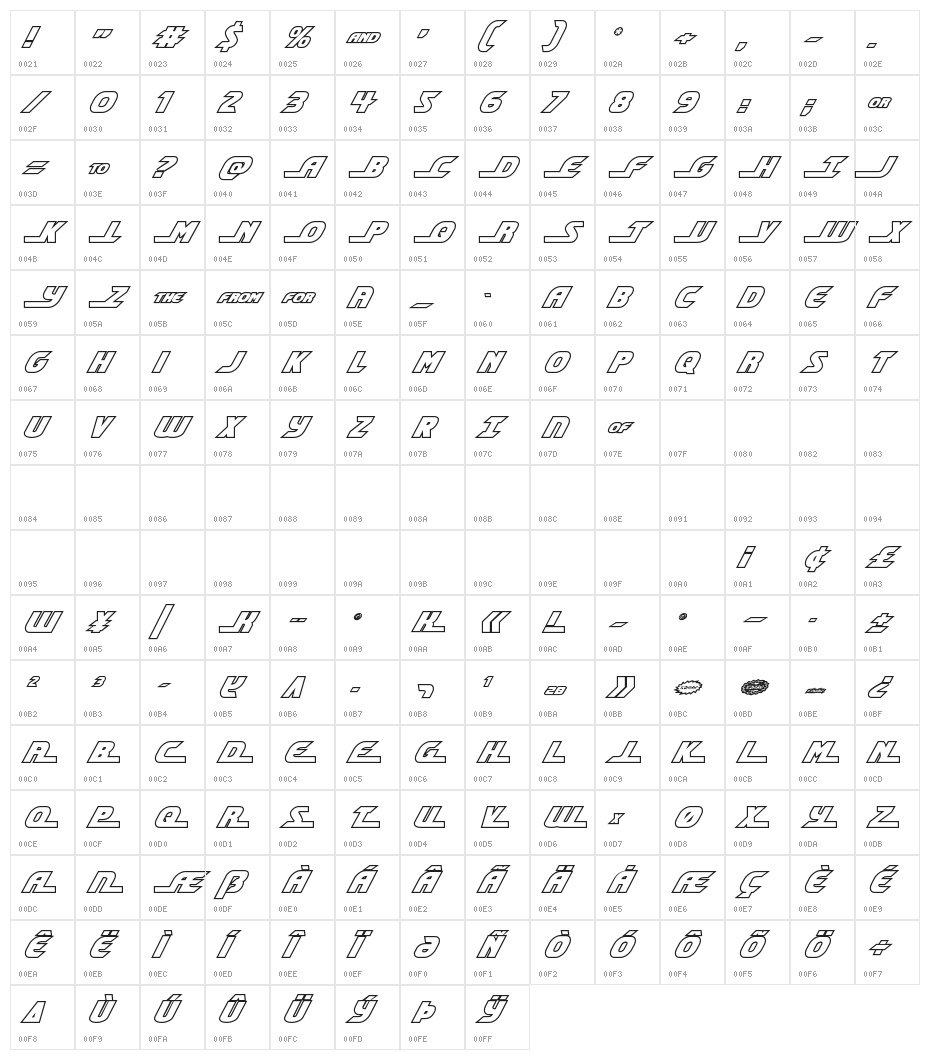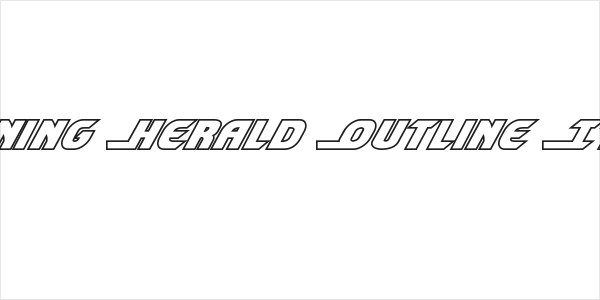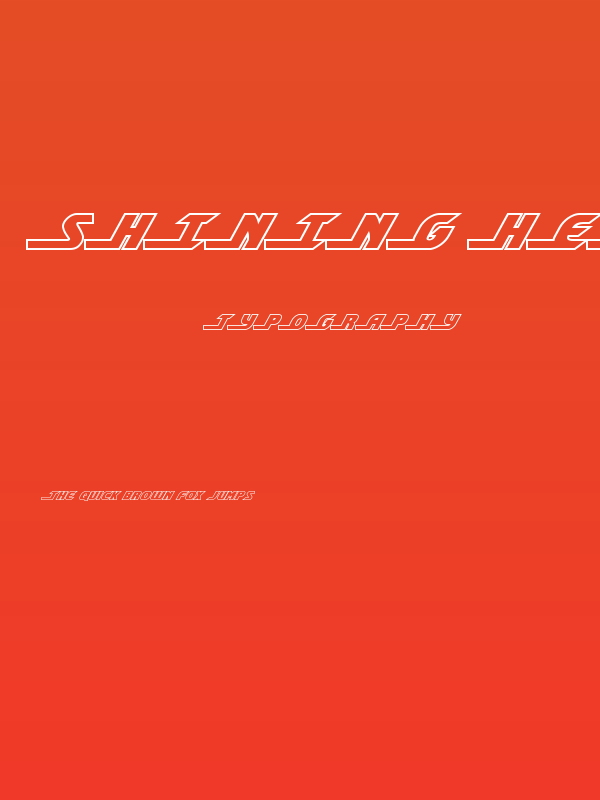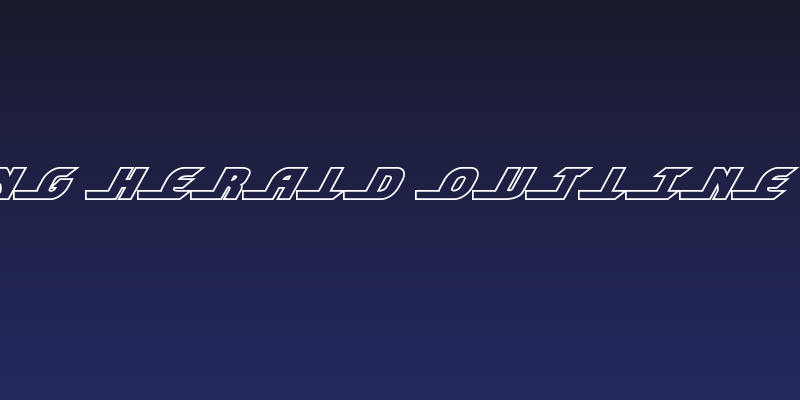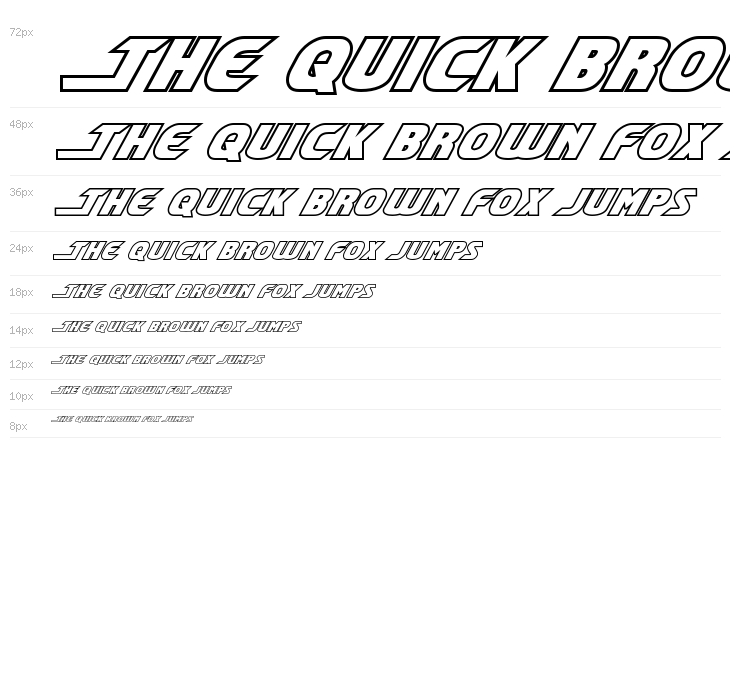
Shining Herald Outline Italic Font
Shining Herald Outline Italic Description
This font features a bold, dynamic style with an outline effect that gives it a striking appearance. The italicized form adds a sense of motion and speed, making it ideal for attention-grabbing designs. Each character is crafted with precision, showcasing sharp angles and clean lines. The uppercase letters are particularly prominent, while the lowercase letters maintain a consistent style. Numbers and special characters are equally bold, ensuring uniformity across all text elements. The font's outline design allows for creative color combinations, enhancing its visual impact.